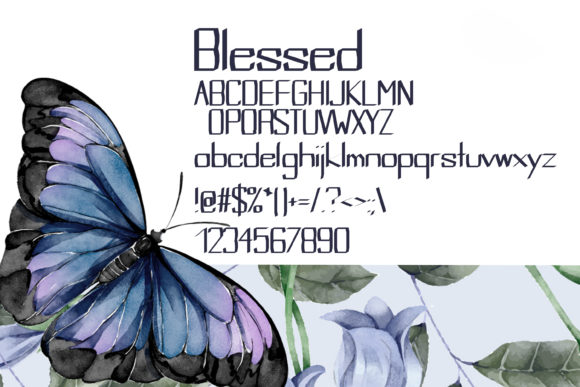
The Designer’s Delight: Unpacking the Blessed Font
I’ll never forget the time I was working on a branding project for a trendy new cafe. My client was specific about wanting a modern, edgy vibe, but I was struggling to find the perfect font to capture that essence. That’s when I stumbled upon the Blessed font – a neat and modern display font that instantly elevated my design game. In this article, I’ll share my experience with Blessed, its features, and how to make the most of it in your designs.
First Impressions: A Review of Blessed Font
- ✨ Geometric shapes: Blessed features beautiful geometric shapes that give it a modern and sleek look.
- ✅ Adaptability: This font is incredibly adaptable to a wide range of designs, from branding and advertising to packaging and digital media.
- 💡 Legibility: Blessed is clear and legible, even at smaller sizes, making it perfect for body text and headlines.
While Blessed is an amazing font, there are a few things to keep in mind:
- 🤔 Limited serif options: Blessed is primarily a sans-serif font, which might limit its use in certain design projects that require a serif font.
- ⚠️ Not suitable for body text: While Blessed is legible, it’s primarily designed for display purposes and might not be the best choice for lengthy body text.
Practical Guide: Using Blessed Font in Your Designs
The Story Behind Blessed Font
Blessed was designed with the modern designer in mind. Its creator wanted to craft a font that was both stylish and versatile, suitable for a wide range of design projects. With its geometric shapes and clean lines, Blessed is perfect for designers looking to add a touch of modernity to their work.
Q: What type of projects is Blessed best suited for?
A: Blessed is perfect for branding, advertising, packaging, and digital media projects that require a modern and stylish font.
Q: Can I use Blessed for body text?
A: While Blessed is legible, it’s primarily designed for display purposes and might not be the best choice for lengthy body text.